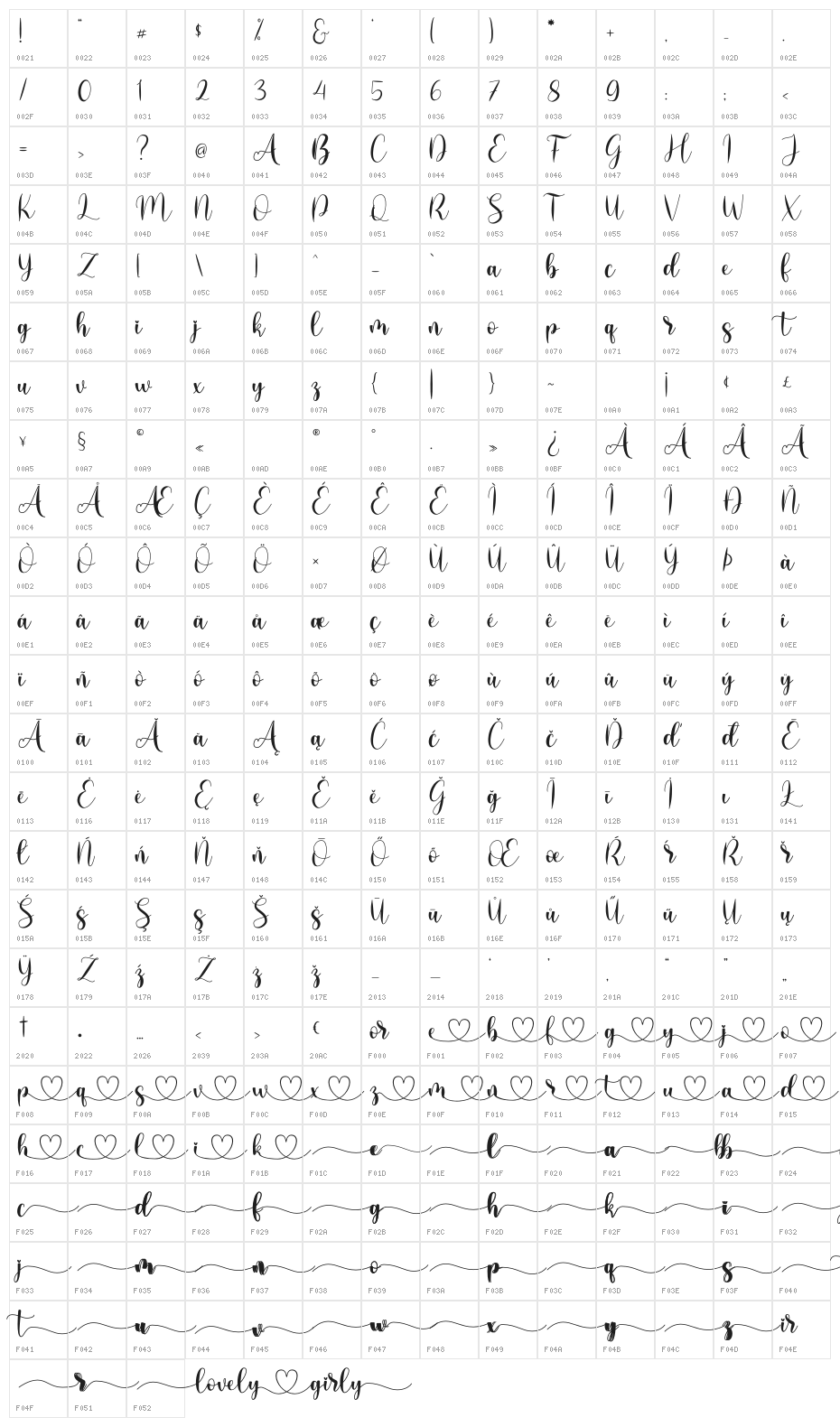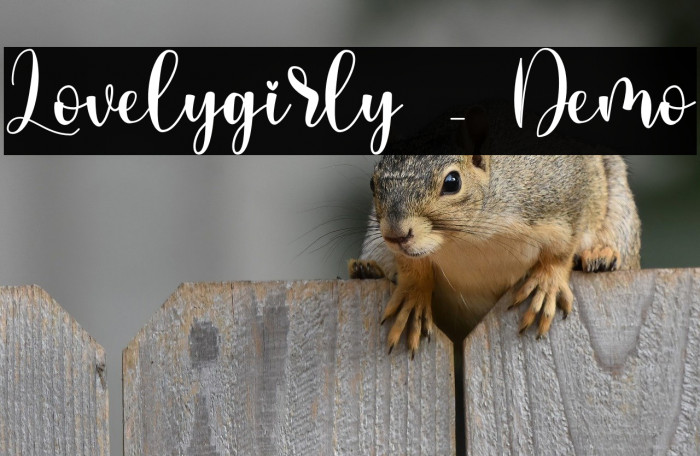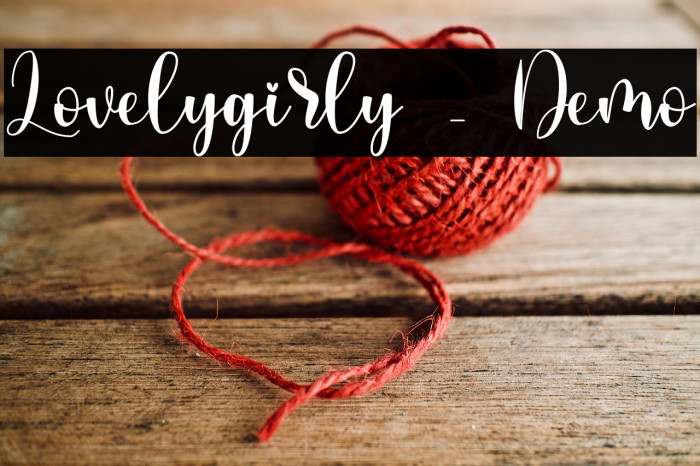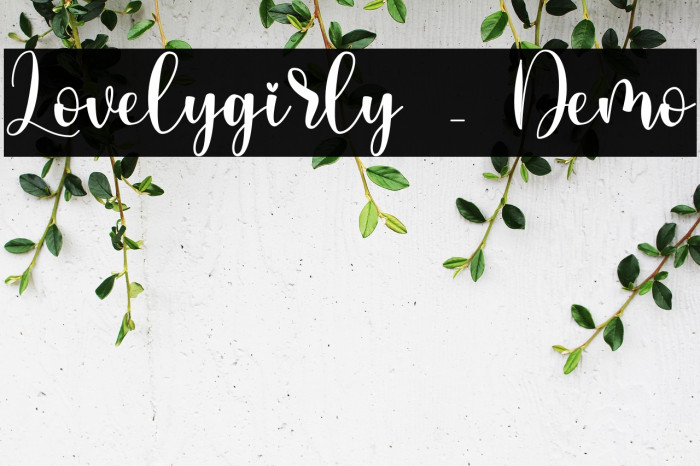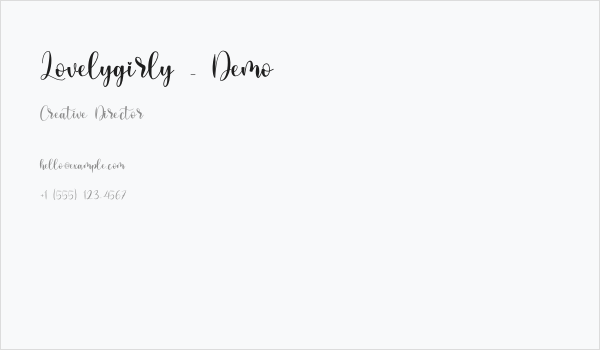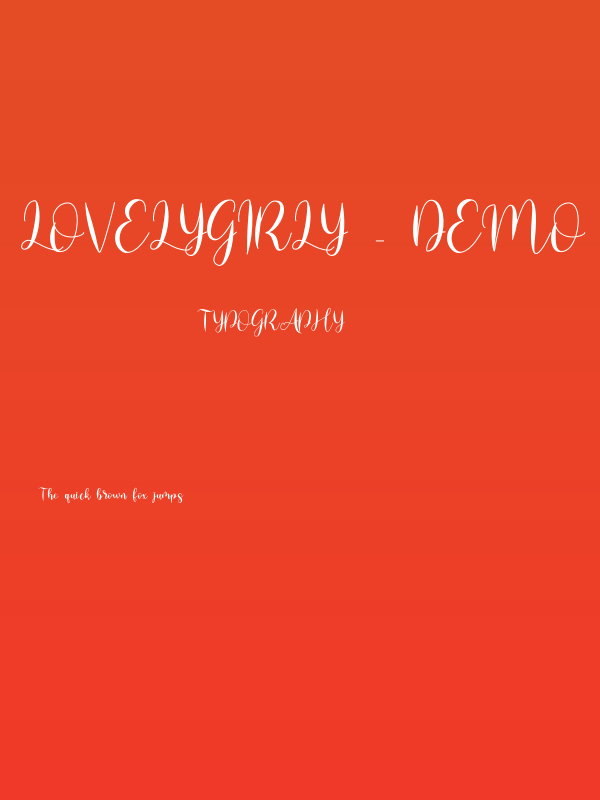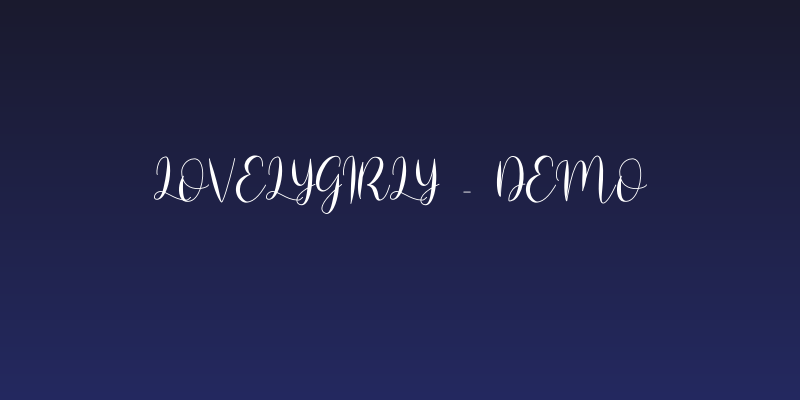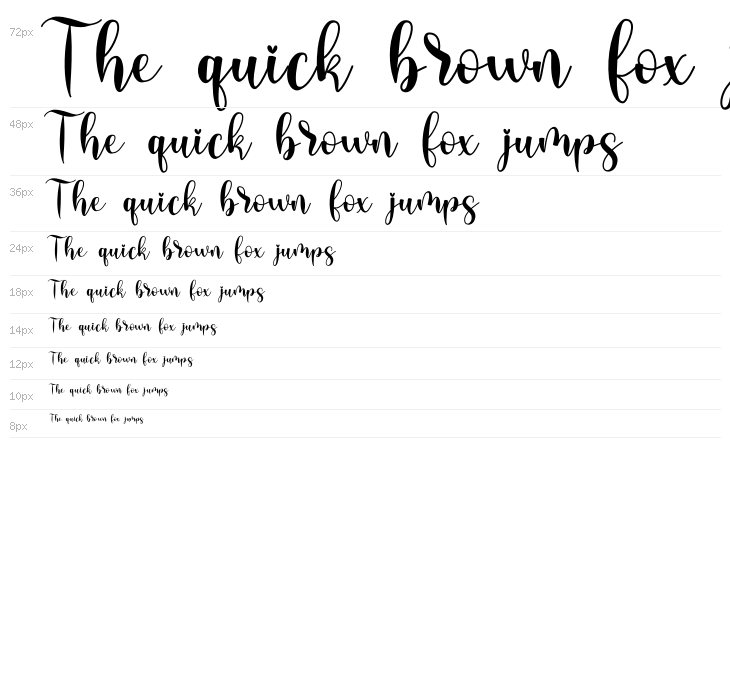
Lovelygirly - Demo Font
Lovelygirly - Demo Description
This font exudes a playful and elegant charm, characterized by its flowing, cursive script style. The uppercase letters are tall and slender, with graceful loops and swirls that add a touch of sophistication. The lowercase letters are more compact, maintaining the cursive flow with a slightly bolder appearance. The numbers are consistent with the overall style, featuring smooth curves and a balanced design. Special characters are creatively integrated, enhancing the font's versatility. This font is perfect for projects that require a personal, handwritten touch, such as invitations, greeting cards, and branding materials.